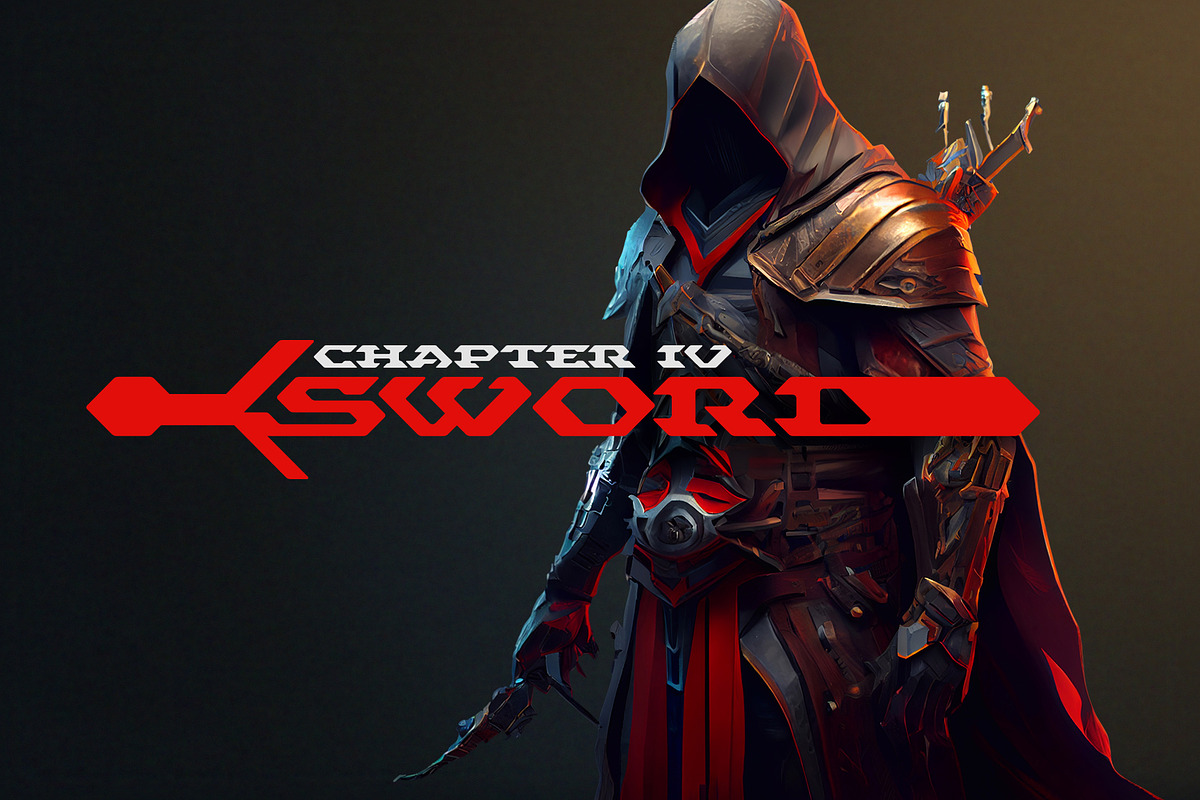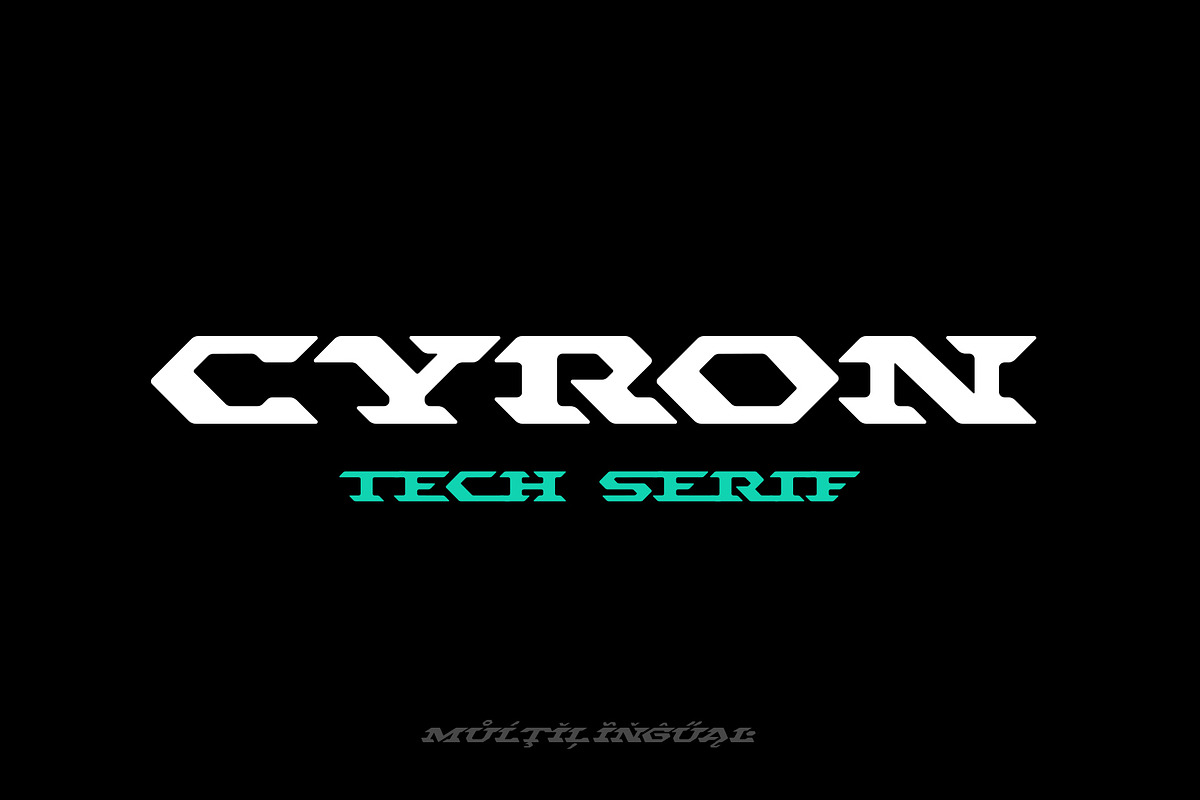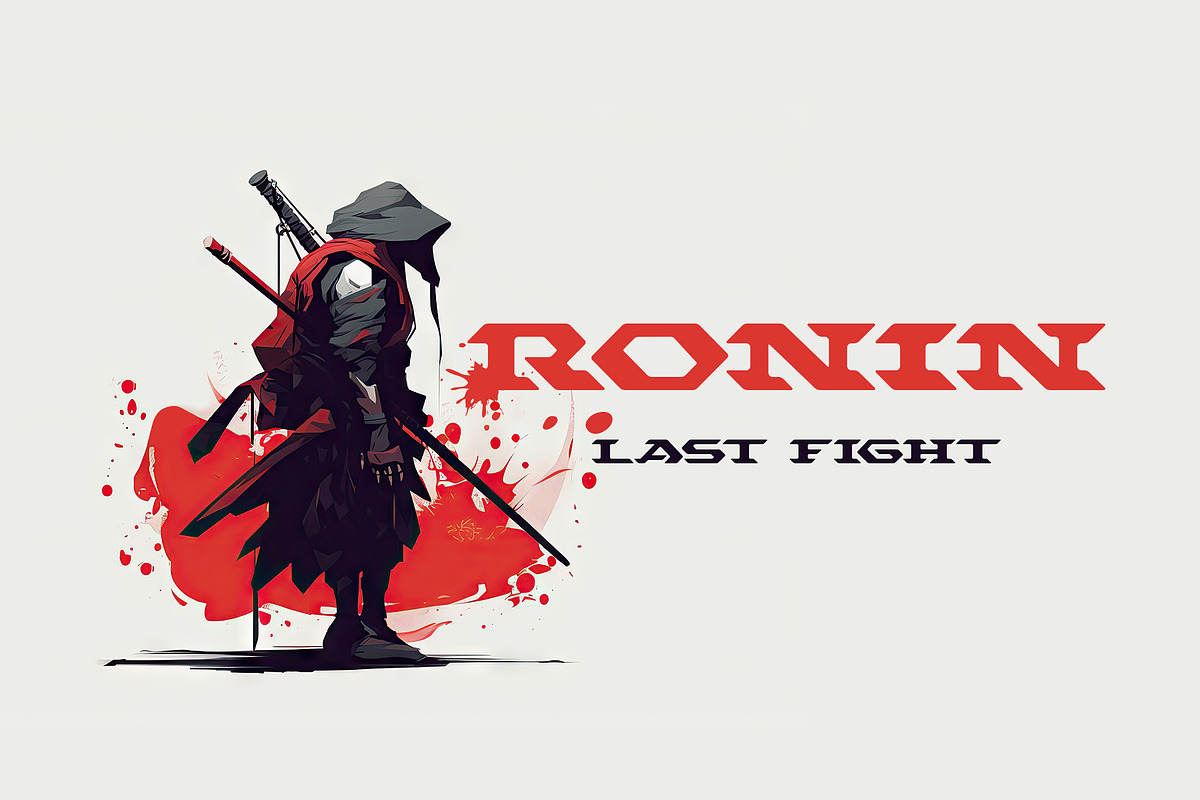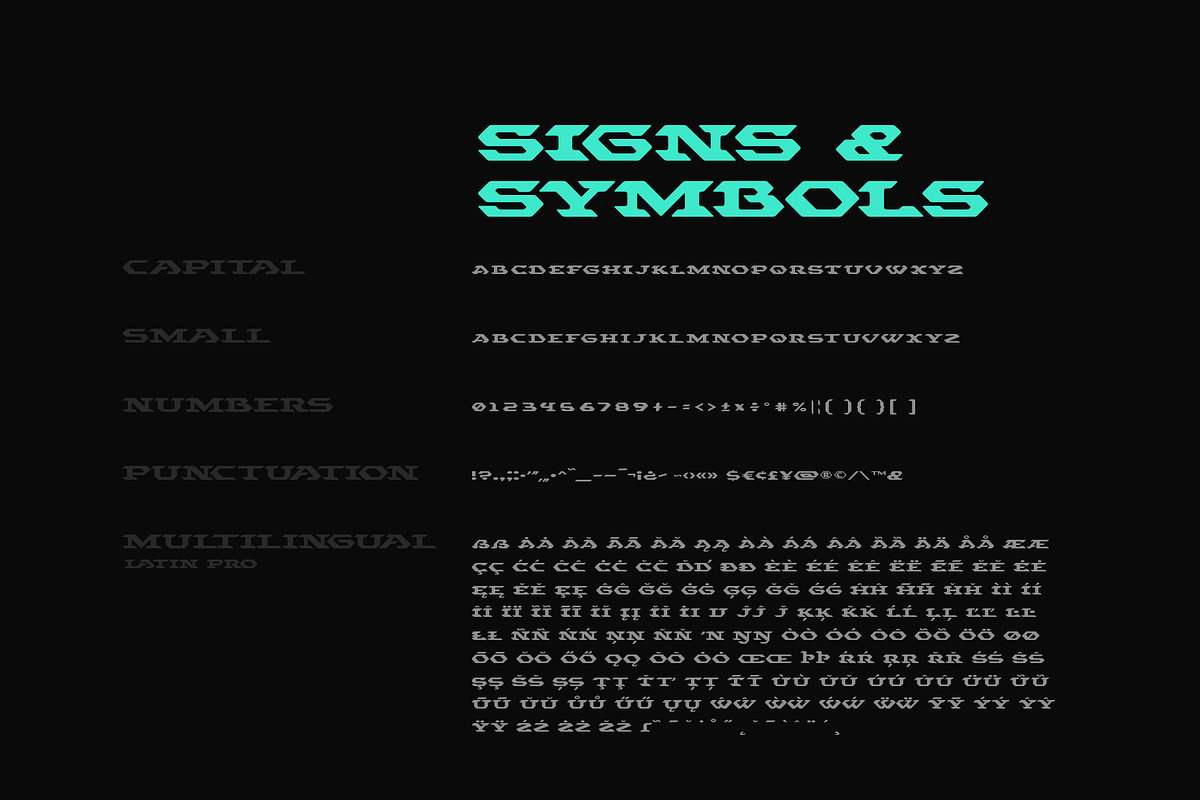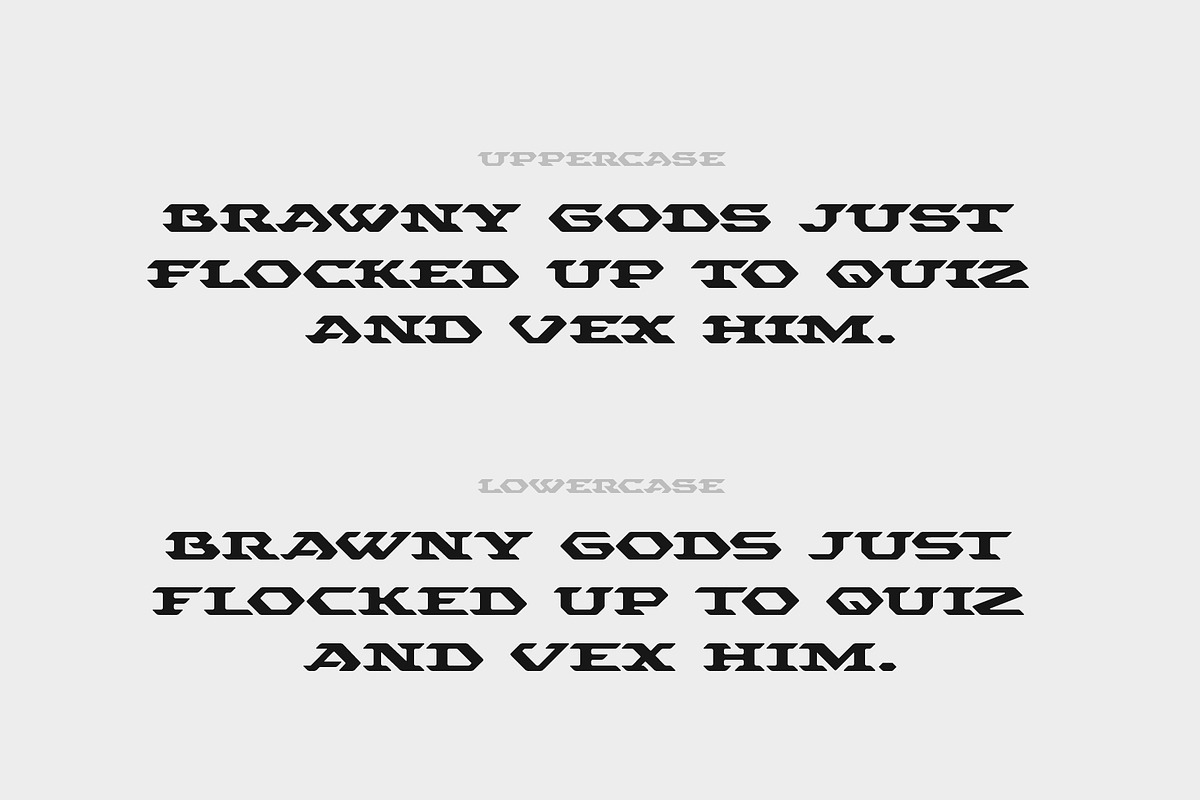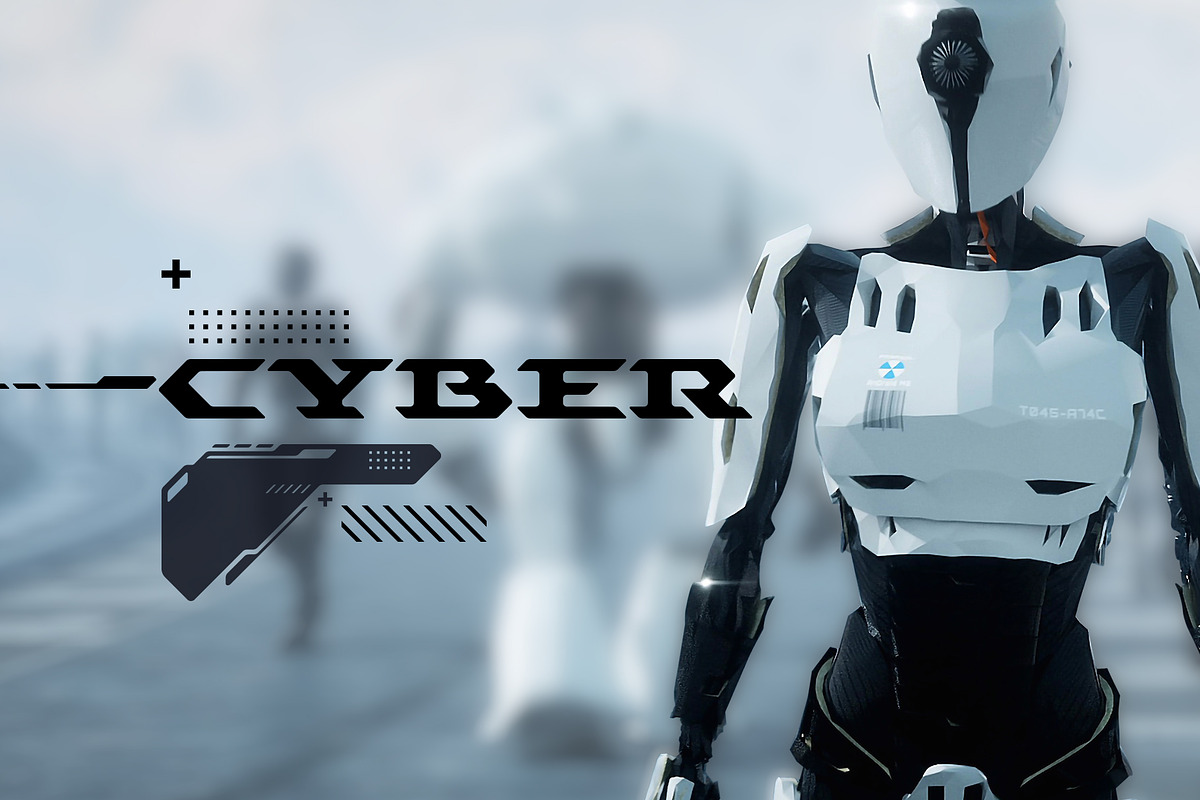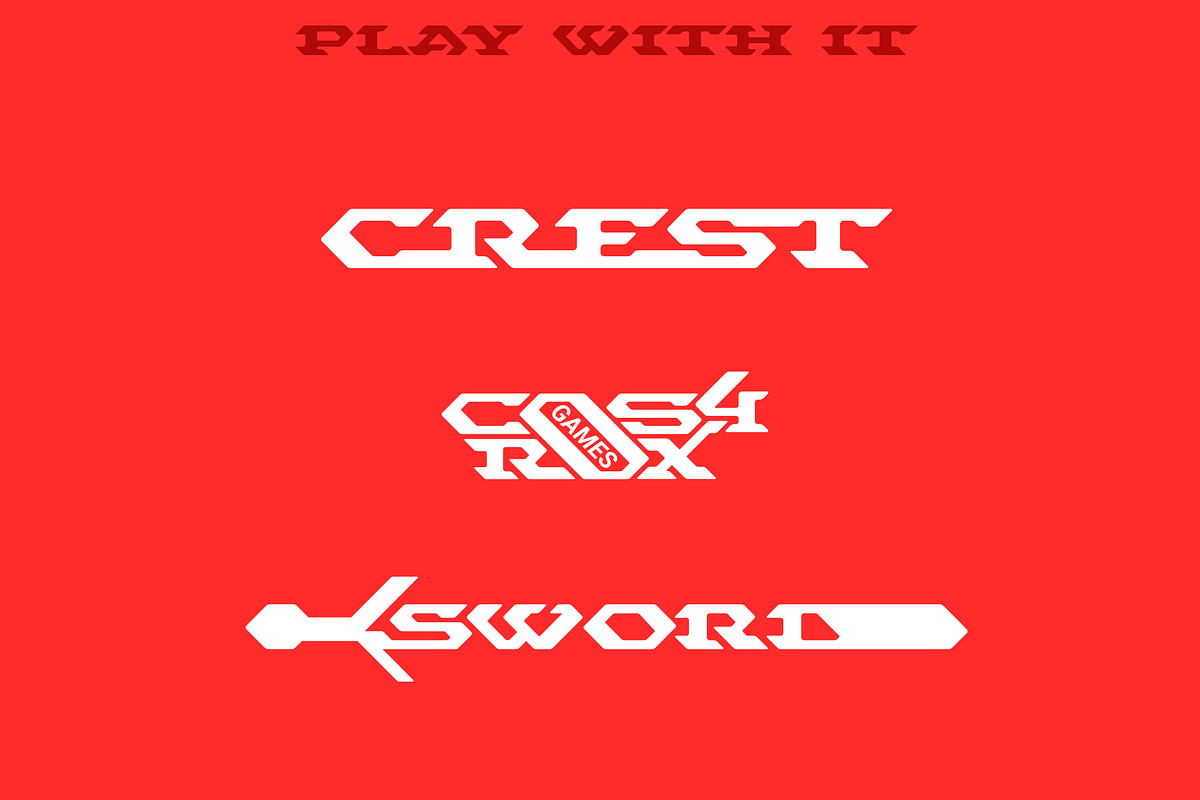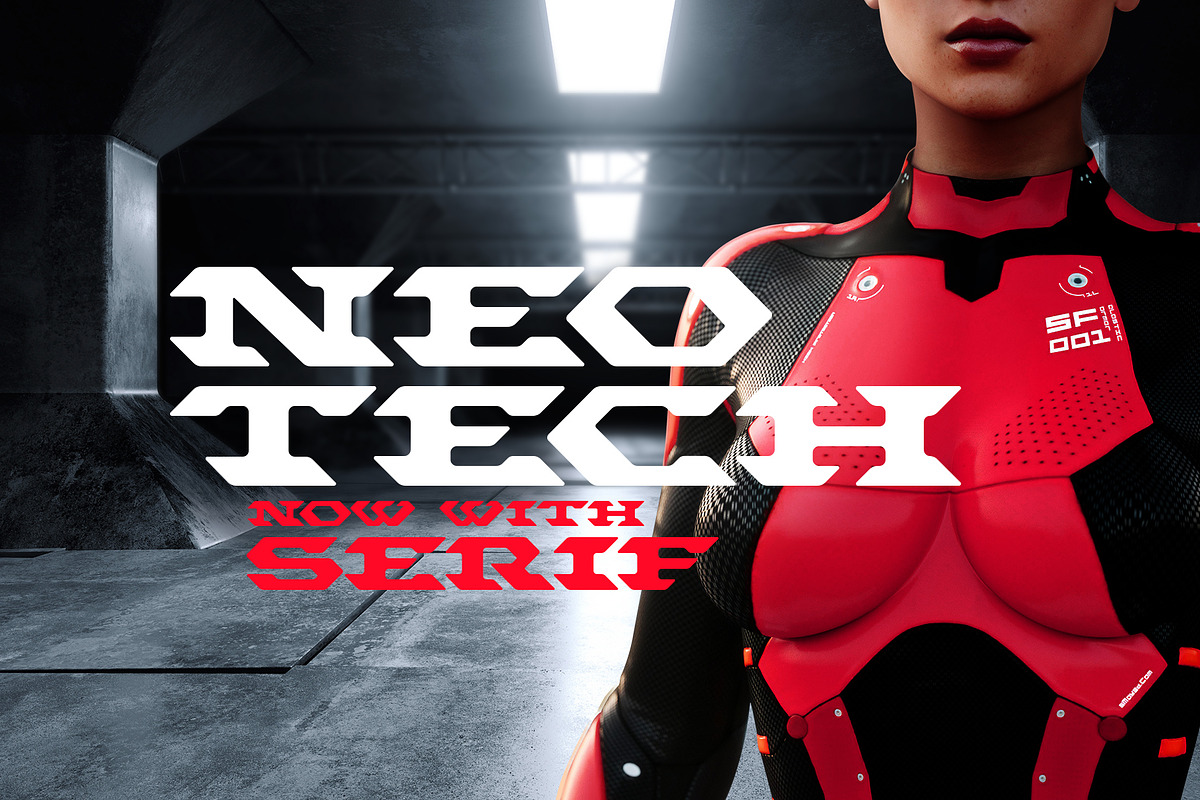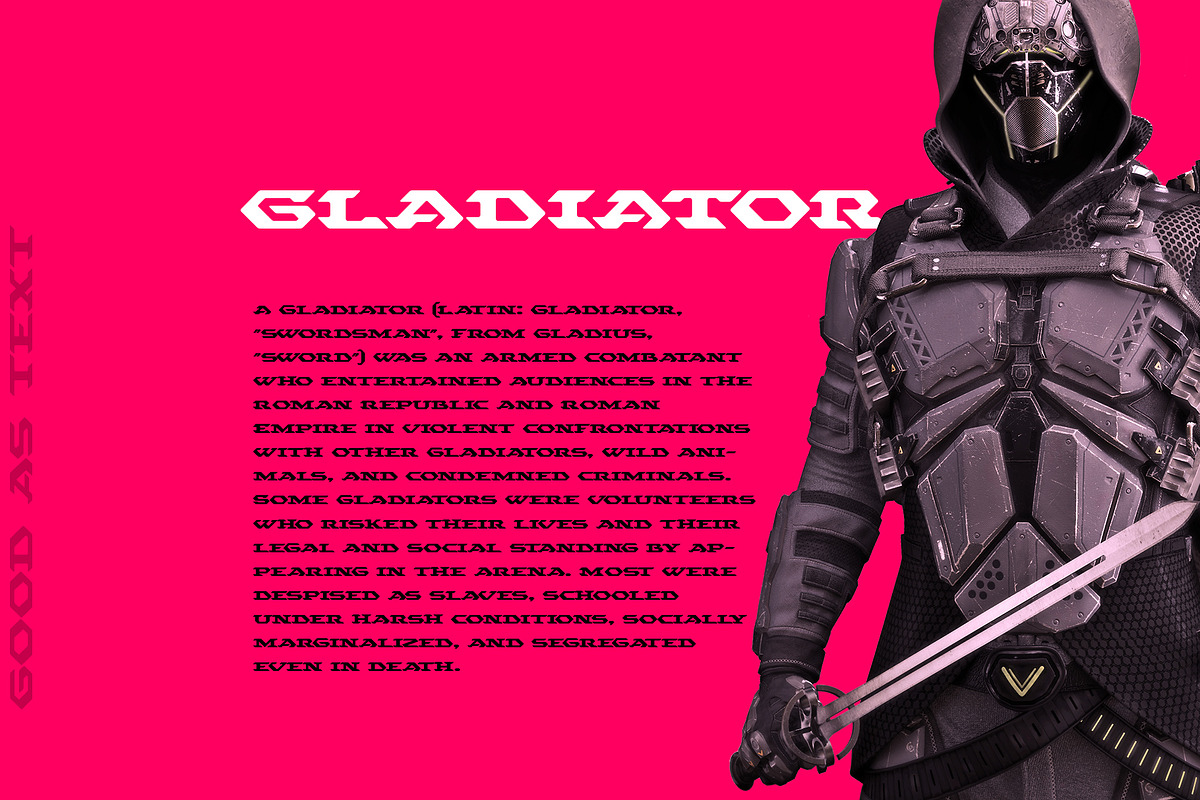
CYRON
CYRON is unique Tech Serif Font neovintage style, combines hi-tech cyberpunk and futuristic atmosphere and classic serif's style. There are Uppercase and Lowercase letters done the way they ideally connect with each other.
It is designed for header and text both. Use it in your projects in such areas as robots & androids, cyberpunk, hi-tech, future, virtual reality, space, army, games and many others.
Supported Languages: Bosnian, Catalan, Czech, Danish, German, English, Spanish, Estonian, Finnish, French, Irish, Croatian, Hungarian, Icelandic, Italian, Lithuanian, Latvian, Maltese, Norwegian, Polish, Portuguese, Romanian, Slovak, Slovenian, Albanian, Swedish, Turkish.